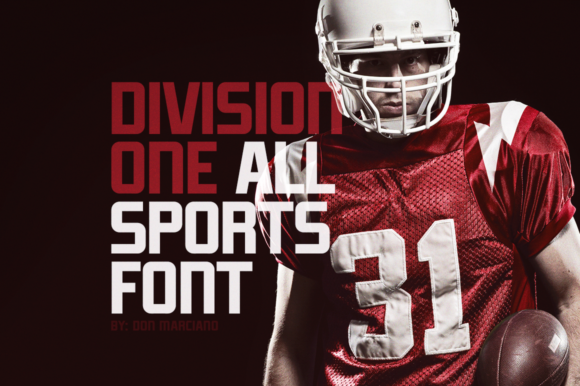
Dive into the realm of captivating typography with Division One Font, a display font that embodies boldness and confidence. Its thick, blocky letters demand attention, making it the perfect choice for creating eye-catching event posters that leave a lasting impression.
Crafted by the skilled hands of DonMarciano, Division One Font is a versatile gem that effortlessly complements any design concept. Whether you're designing posters for concerts, sporting events, or special occasions, this font will elevate your creations to new heights.
Imagine the impact of your event posters adorned with the striking characters of Division One Font. The bold strokes command attention, drawing eyes to your message. Its thick, blocky design conveys a sense of urgency, compelling your audience to take action and join the festivities.
With Division One Font at your fingertips, unleash your creativity and let your event posters speak volumes. Its bold, attention-grabbing letters will ensure your message cuts through the noise and reaches the hearts of potential attendees.
Don't settle for ordinary fonts that blend into the background. Embrace the power of Division One Font and create event posters that ignite excitement and anticipation. Let your designs shine with the confidence and boldness that only this remarkable font can provide.